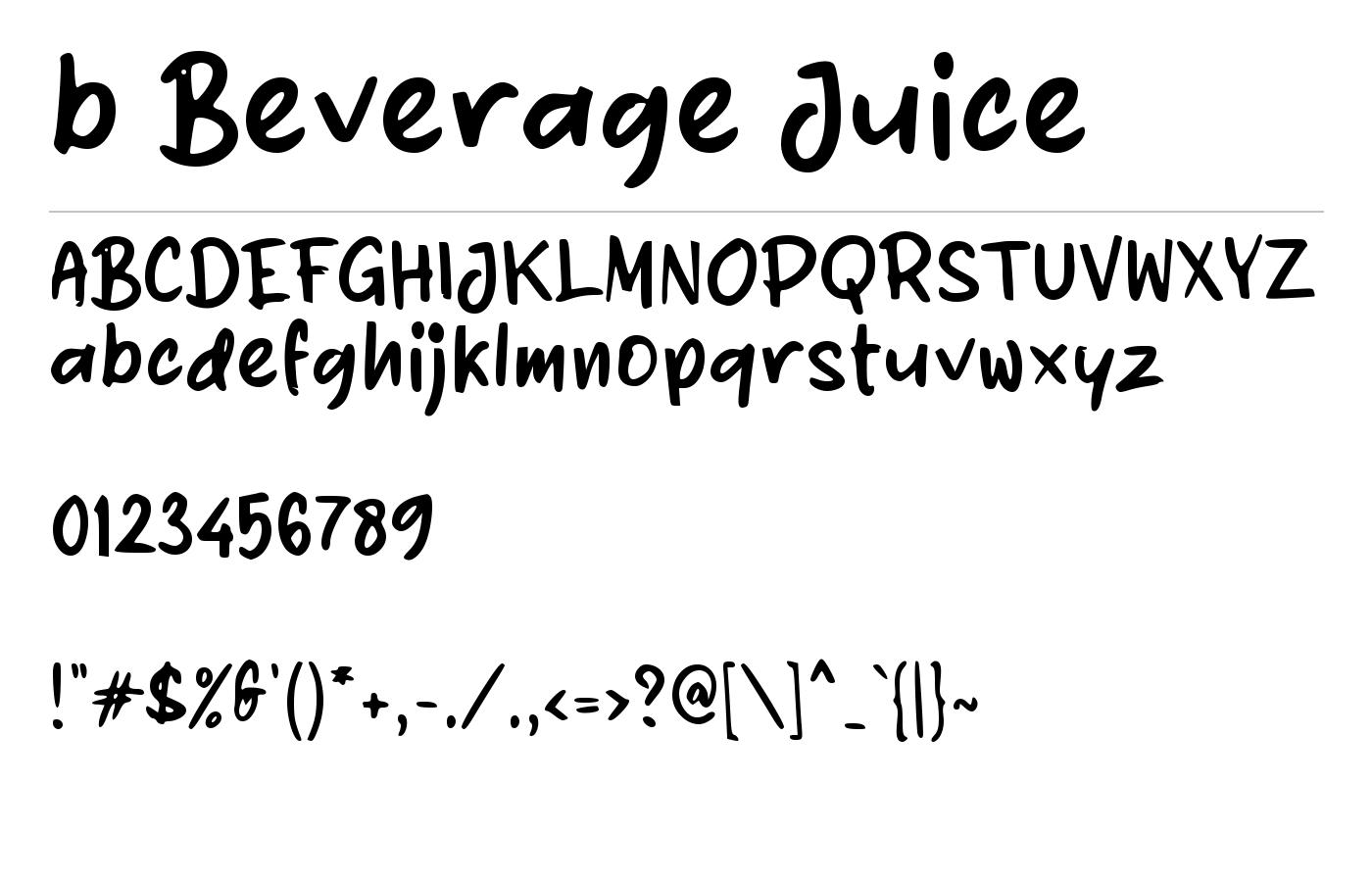
Beverage Juice is a playful, handwritten sans serif font with a casual and friendly vibe. Its moderate weight and slightly irregular letterforms create an approachable, fun feel that works great for informal branding, children's products, and creative projects. Perfect for logos, packaging, and headings, it adds personality without sacrificing readability.
b Beverage Juice Font
About b Beverage Juice Font